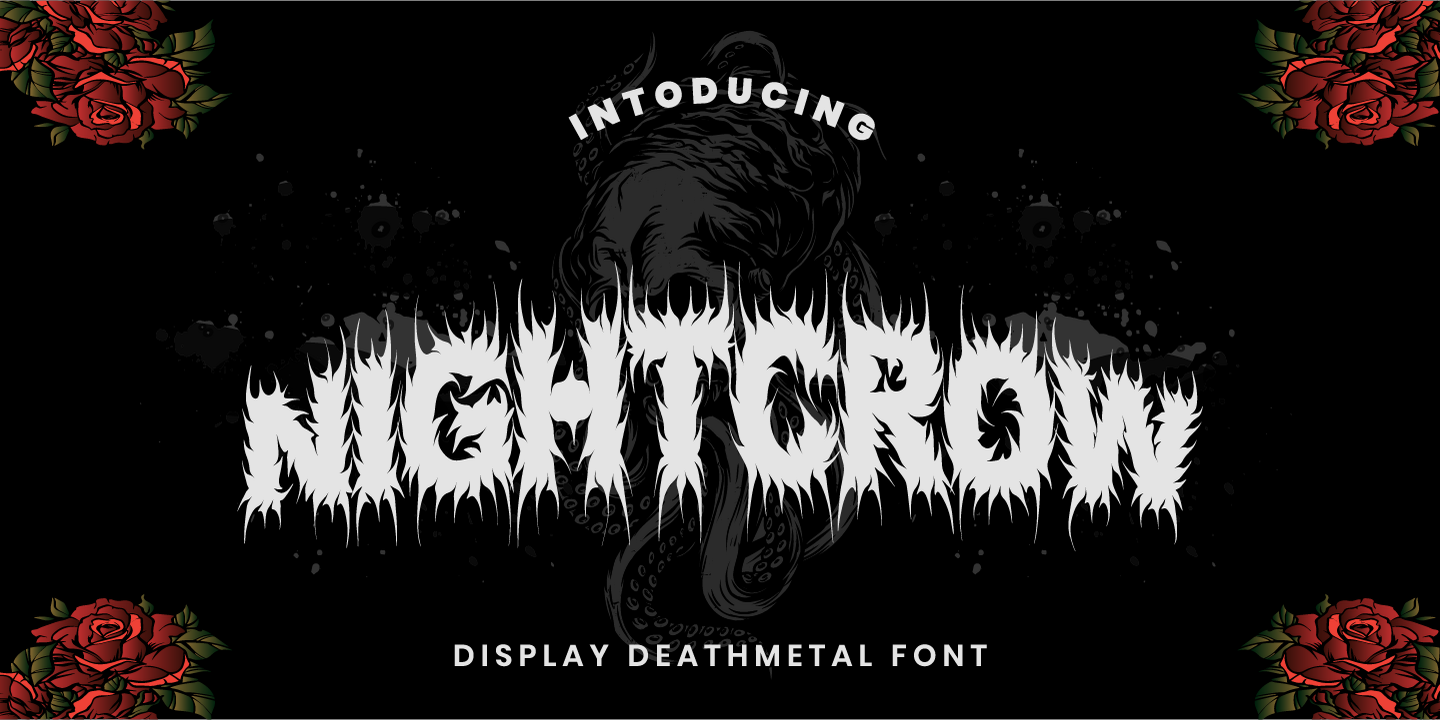
This dark gothic font is perfect for horror movie titles, Halloween event promotions, gothic fashion branding, mysterious book covers, dark metal band logos, occult-themed designs, supernatural gaming interfaces, and enigmatic design projects that embrace the shadows and celebrate nocturnal mystique.
Nightcrow Font is exciting because it embodies supernatural darkness with its haunting letterforms that seem to emerge from midnight shadows like ominous ravens taking flight. The font delivers gothic authority while maintaining mysterious readability that beckons from the darkness.
The Nightcrow Font family includes regular and distressed versions with gothic decorative elements, raven symbols, and dark ornaments, providing designers with comprehensive tools for creating spine-tingling typography that rules the night.
Ready to embrace the darkness? Nightcrow Font Free Download offers designers haunting letterforms that soar with gothic elegance and supernatural mystique. This mesmerizing typeface combines dark aesthetics with professional functionality, making it ideal for horror entertainment, gothic fashion brands, and mysterious campaigns. Whether you're designing Halloween promotions, horror movie posters, or dark fantasy book covers, this font delivers spine-chilling appeal. The ominously crafted characters feature gothic curves while maintaining excellent readability across dark applications. Perfect for businesses in horror entertainment, gothic fashion, supernatural gaming, and alternative culture that celebrate the beauty of darkness. The font's nocturnal construction creates memorable brand recognition that resonates with dark aesthetics enthusiasts worldwide. Each letter showcases deliberate mystery that mirrors the enigmatic allure of midnight ravens. Download today and summon darkness in your creative projects with this premium gothic font that transforms ordinary text into extraordinary expressions of supernatural elegance and the haunting beauty of Nightcrow Font Free Download mystery.